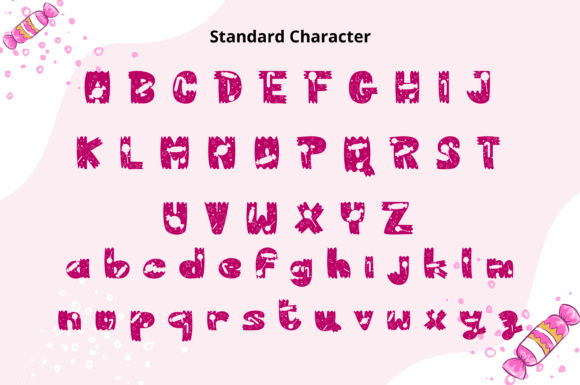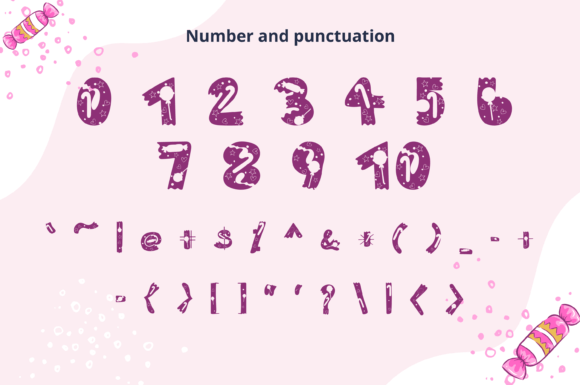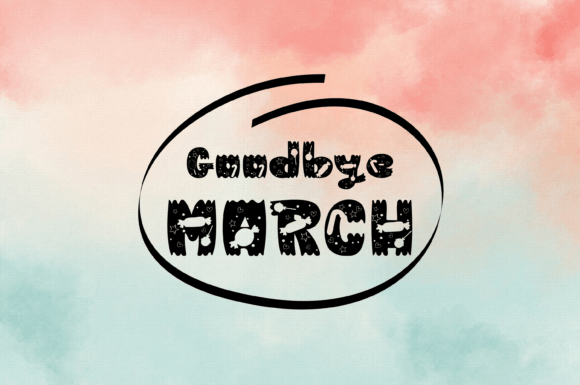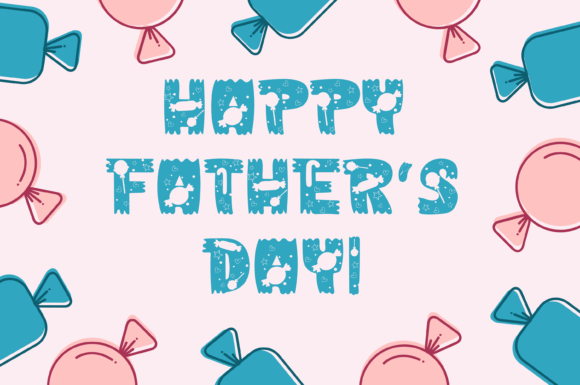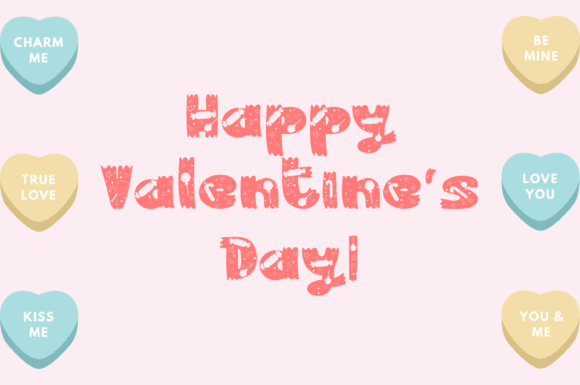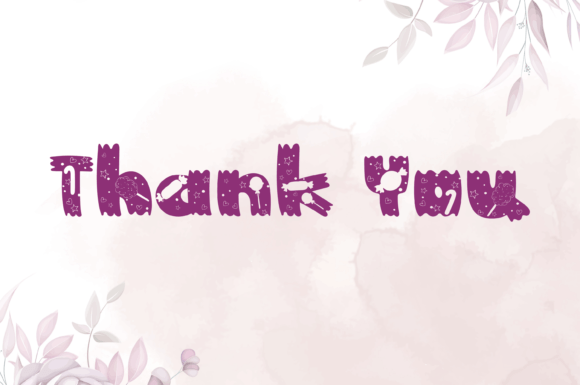
Crispy Candy Font: The Sweetest Addition to Your Design Projects
Are you looking for a font that can add a touch of whimsy and sweetness to your design projects? Look no further than the Crispy Candy font! This decorative font is perfect for designers and crafters who want to make their creations stand out from the crowd. In this article, we’ll take a closer look at the Crispy Candy font, its features, and how you can use it to elevate your design projects.
What is Crispy Candy Font?
Crispy Candy is a whimsical and sweet decorative font that is sure to delight. Its unique and playful design makes it perfect for a wide range of projects, from crafting and scrapbooking to graphic design and digital art. The font’s sweet and cheerful vibe is sure to add a touch of fun and personality to any design.
Key Features of Crispy Candy Font
- Whimsical Design: The Crispy Candy font features a unique and playful design that is sure to capture attention.
- Decorative Style: This font is perfect for designers and crafters who want to add a touch of elegance and sophistication to their projects.
- Highly Versatile: The Crispy Candy font can be used for a wide range of projects, from crafting and scrapbooking to graphic design and digital art.
- Easily Readable: Despite its decorative style, the Crispy Candy font is easily readable, making it perfect for use in titles, headings, and body text.
How to Use Crispy Candy Font in Your Design Projects
The Crispy Candy font can be used in a variety of design projects, including:
- Crafting and Scrapbooking: Add a touch of sweetness to your scrapbook pages and crafting projects with the Crispy Candy font.
- Graphic Design: Use the Crispy Candy font to create eye-catching titles and headings for your graphic design projects.
- Digital Art: Add a touch of whimsy to your digital art projects with the Crispy Candy font.
- Wedding and Party Decor: Use the Crispy Candy font to create beautiful and unique wedding and party decorations, such as invitations, banners, and signs.
Tips for Using Crispy Candy Font
Here are a few tips for using the Crispy Candy font in your design projects:
- Pair with Other Fonts: The Crispy Candy font pairs well with other fonts, such as sans-serif fonts and script fonts.
- Use in Moderation: While the Crispy Candy font is sweet and playful, it can be overwhelming if used too much. Use it in moderation to add a touch of whimsy to your designs.
- Experiment with Colors: The Crispy Candy font looks great in a variety of colors, from bright and bold to soft and pastel.
The Crispy Candy font is a sweet and whimsical decorative font that is sure to add a touch of fun and personality to your design projects. Its unique and playful design makes it perfect for a wide range of projects, from crafting and scrapbooking to graphic design and digital art. With its highly versatile design and easily readable style, the Crispy Candy font is a great addition to any designer’s toolkit.